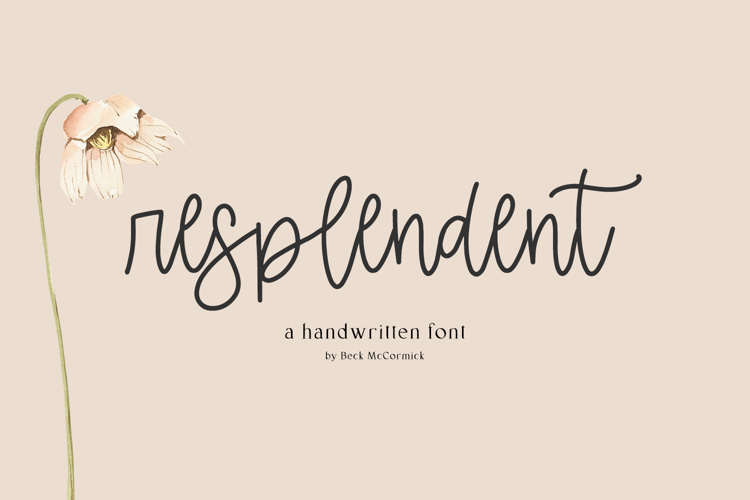
Resplendent is best for:
- feminine, crafty projects with your Cricut or Silhouette machine, or your SVG design business
- farmhouse decor and crafts
- wedding invitations, wedding favors, or wedding decor
- digital planners & apps like Goodnotes
- website design + website accents, blog design
- feminine graphic tee shirt design & other apparel
- 6 alternate characters (g, j, q, y, z, and an r in initial form) & 1 ligature (tt)